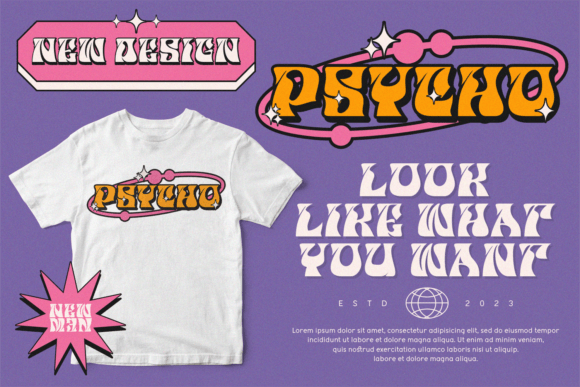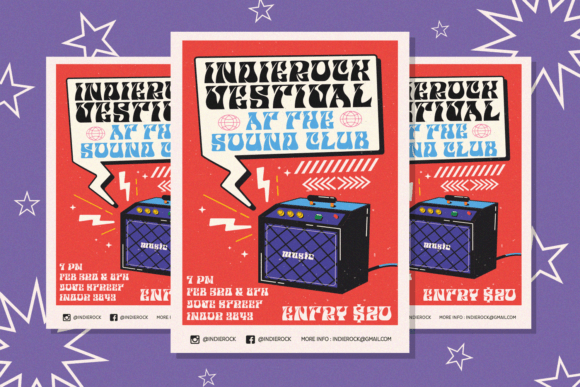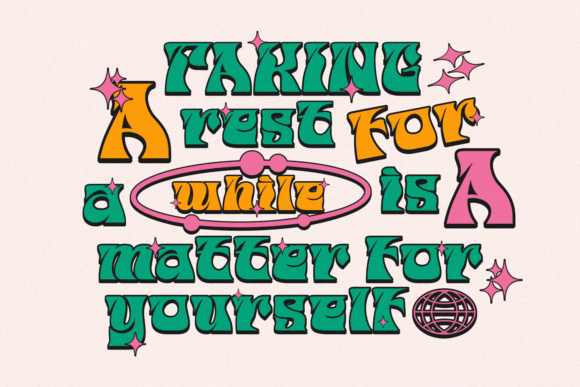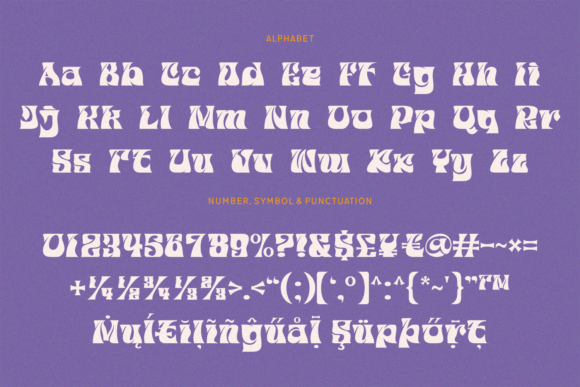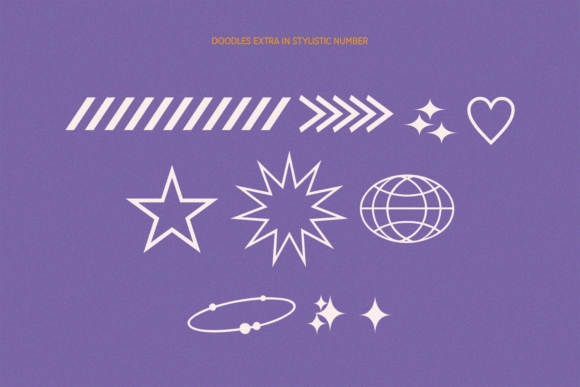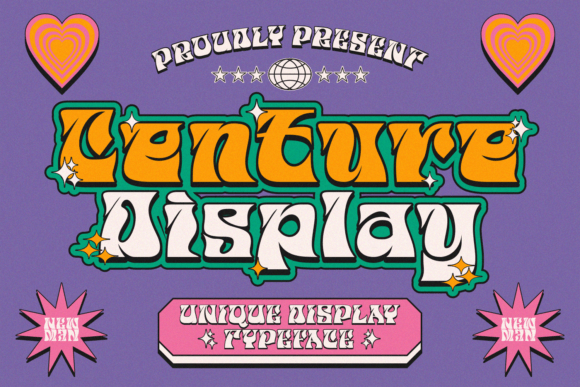
Introducing Centure Display Font: A Timeless Vintage Display Font
In the world of typography, a well-crafted font can elevate a design from ordinary to extraordinary. For designers and crafters seeking to add a touch of elegance and sophistication to their projects, Centure Display Font is an exceptional choice. This vintage display font boasts distinctive details and ornate curves that evoke a bygone era, making it perfect for creating a memorable and lasting visual impact.
The Characteristics of Centure Display Font
Centure Display Font is distinguished by its elegant serifs and bold strokes, which combine to create a bold statement. The font’s unique character sets it apart from more traditional fonts, offering a fresh and distinctive aesthetic. Its vintage charm is meticulously crafted, with intricate details that recall classic typography from a bygone era.
What Makes Centure Display Font Stand Out
• Elegant Serifs and Bold Strokes: The font’s serifs are meticulously designed to add a level of sophistication and refinement to any design. Paired with bold strokes, Centure Display Font commands attention without overwhelming the senses.
• Unique Character: Unlike more traditional fonts, Centure Display Font offers a unique character that can instantly elevate a design. Its distinctiveness ensures that your work stands out in a crowded visual landscape.
• Vintage Charm: The font’s vintage appeal is perfect for designers and crafters looking to infuse their projects with a sense of history and nostalgia. Whether you’re working on a branding project, packaging, or editorial design, Centure Display Font can add a touch of classic elegance.
Centure Display Font is PUA (Private Use Area) encoded, which means that accessing its delightful glyphs and swashes is straightforward and hassle-free. PUA encoding allows designers to use the font’s extended character set without the need for additional software or complicated workarounds. This feature ensures that you can focus on the creative aspect of your project, rather than getting bogged down in technical details.
Applications of Centure Display Font
The versatility of Centure Display Font makes it suitable for a wide range of applications, including:
• Branding and Logo Design: Create a lasting impression with a unique and memorable logo that captures the essence of your brand.
• Packaging Design: Add a touch of elegance and sophistication to your product packaging, making it stand out on store shelves.
• Editorial Design: Use Centure Display Font to create eye-catching headlines and titles for magazines, newspapers, and digital publications.
• Advertising and Marketing Materials: Make your advertisements and marketing materials more engaging and memorable with this distinctive font.
Tips for Using Centure Display Font
To make the most of Centure Display Font, consider the following tips:
• Pair with Complementary Fonts: Combine Centure Display Font with simpler fonts to create visual contrast and hierarchy in your design.
• Experiment with Colors and Textures: Take advantage of the font’s vintage charm by experimenting with different colors and textures that complement its classic aesthetic.
• Use Sparingly: Due to its bold and distinctive nature, Centure Display Font is best used sparingly to maximize its impact.
In conclusion, Centure Display Font is a versatile and elegant vintage display font that can add a touch of sophistication and class to any design project. Its unique character, elegant serifs, and bold strokes make it an excellent choice for designers and crafters looking to create a memorable and lasting visual impact. With its PUA encoding, using this font is effortless, allowing you to focus on bringing your creative vision to life.